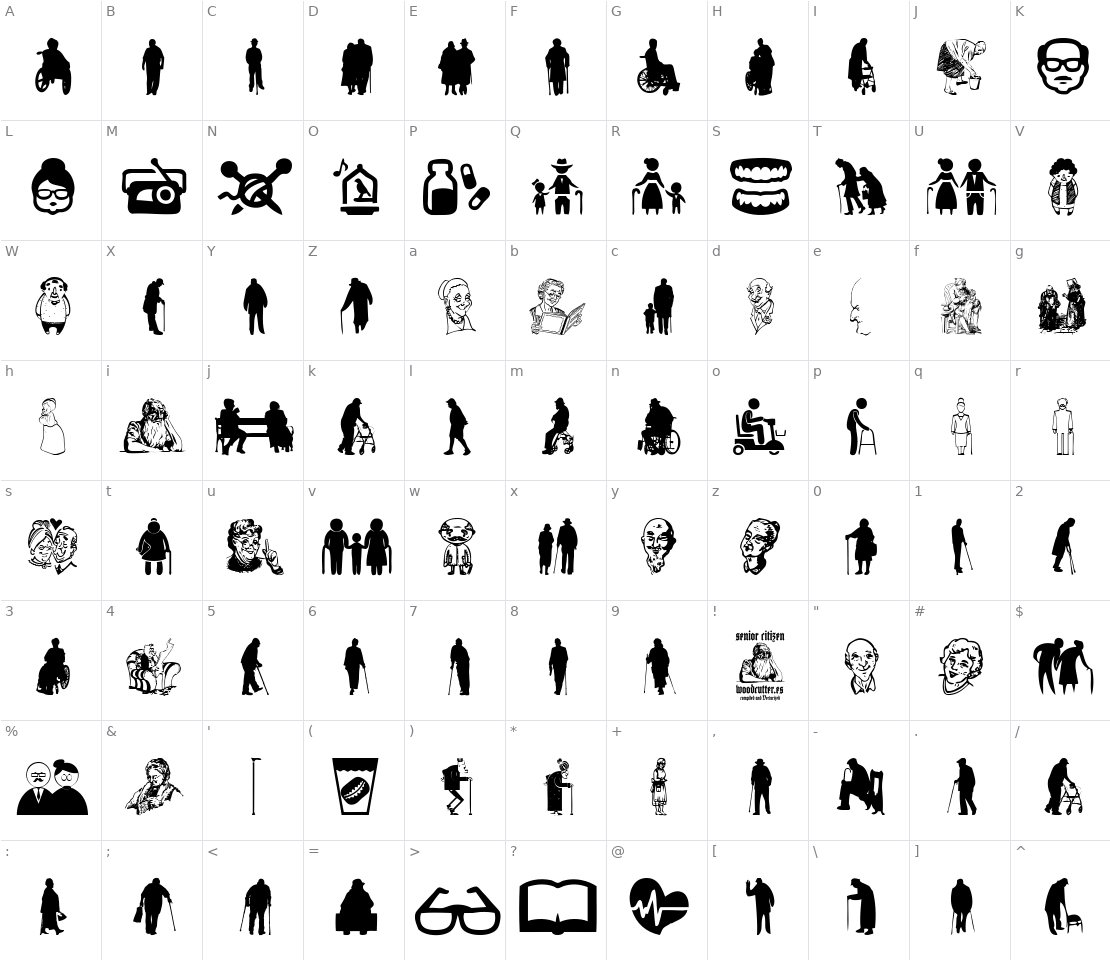
Senior Citizen
Senior Citizen is a dingbat font from Woodcutter featuring silhouette illustrations of elderly figures in various poses and situations, including wheelchair users. It's a niche icon set rather than a text typeface, useful for signage, infographics, or accessibility-related design where you need simple, recognizable pictograms of older adults.